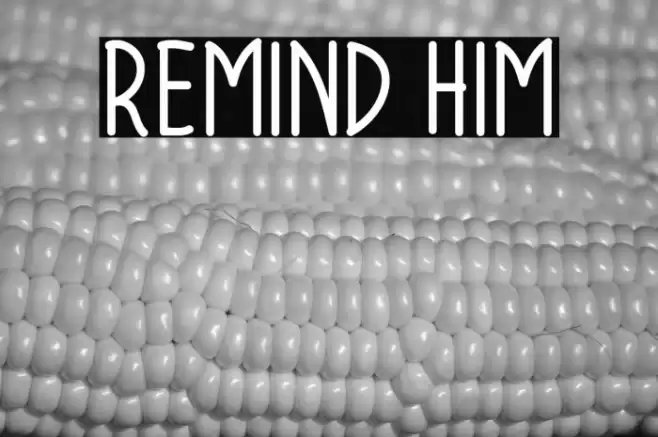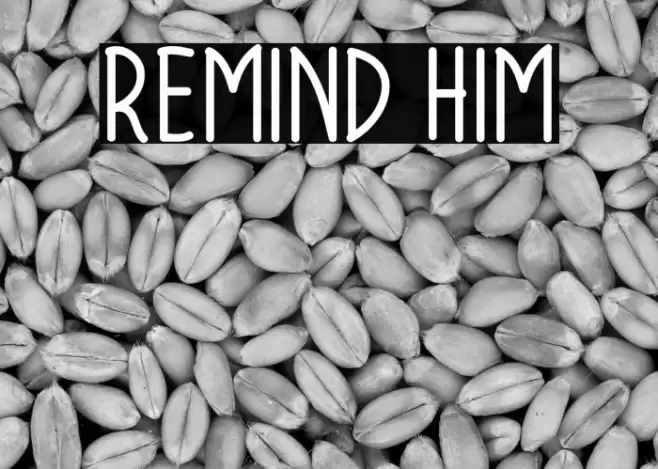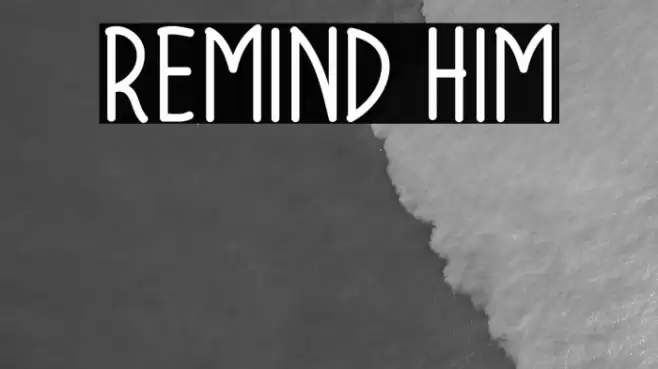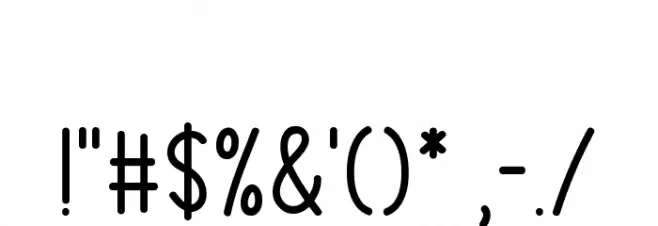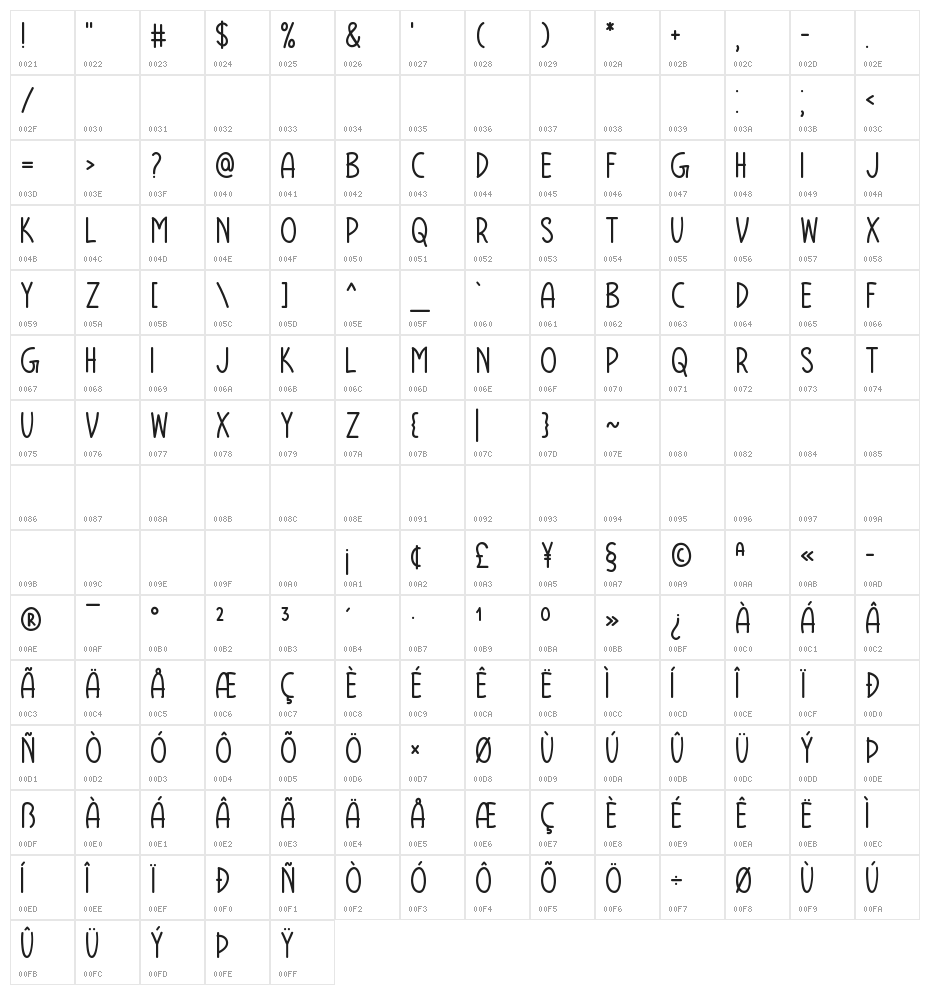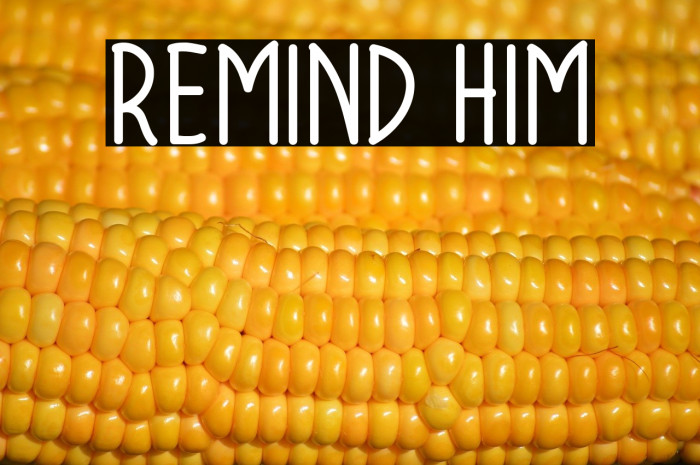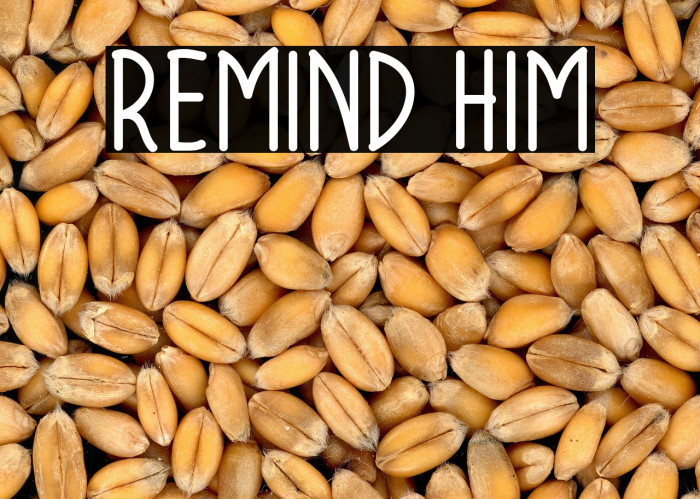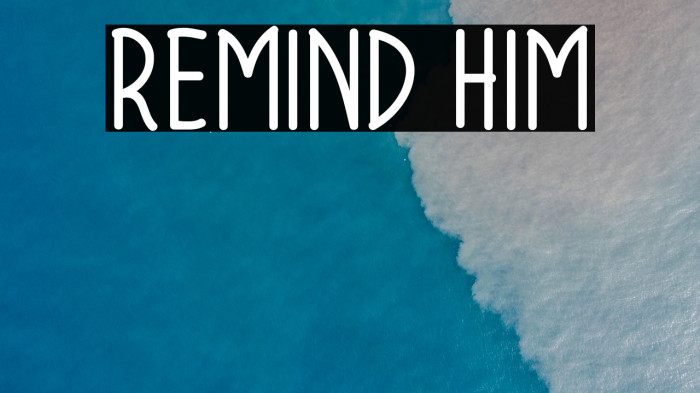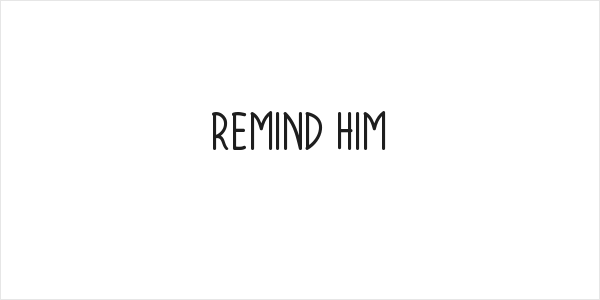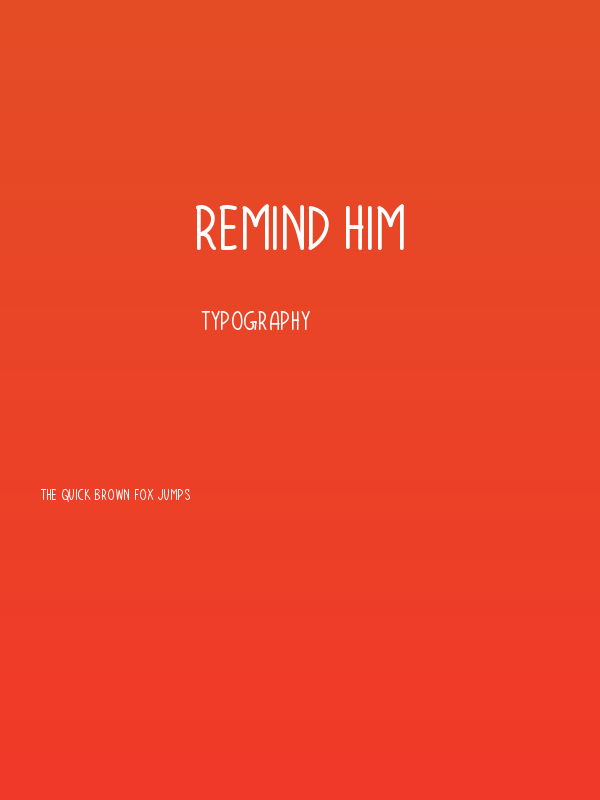
Remind Him Font
Remind Him Description
This font features a playful and casual handwritten style, characterized by its rounded and slightly irregular letterforms. The uppercase and lowercase letters maintain a consistent flow, with smooth curves and a friendly appearance. The characters are evenly spaced, providing a balanced and approachable look. The font includes a full set of uppercase and lowercase letters, numbers, and a variety of special characters, making it versatile for various design needs. Its informal style makes it suitable for projects that require a personal touch or a relaxed vibe.
A playful, handwritten font with rounded, smooth letterforms from Regular fonts.
- Font: Remind Him
- Proposed Projects: Ideal for greeting cards, children's books, casual branding, and social media graphics.
- Overall Style: Casual, Playful
- Use Case: Headlines, Informal text, Branding